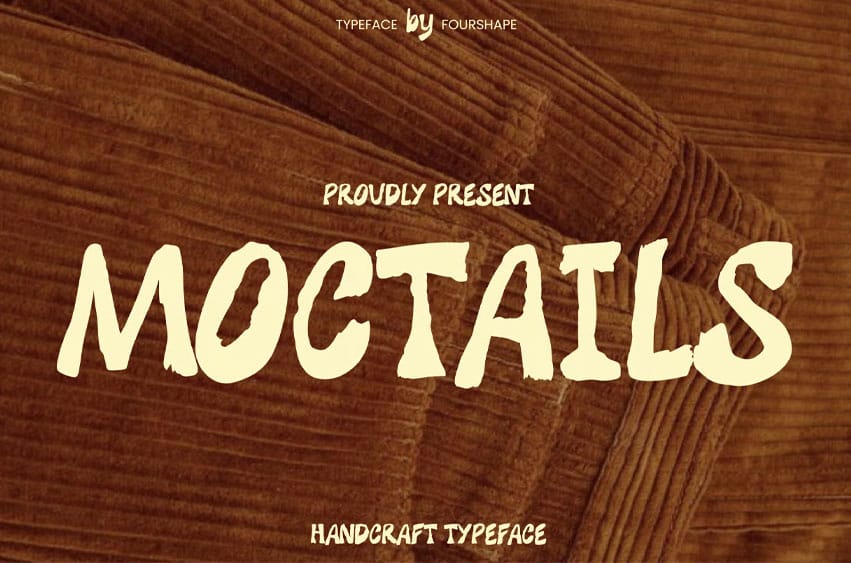
Moctails Font Typeface Font Bold handcrafted display font that brings raw character and handmade charm to your design. Each letter feels imperfectly perfect — rough, expressive, and full of motion.
Making it ideal for projects that celebrate authenticity and creative freedom.